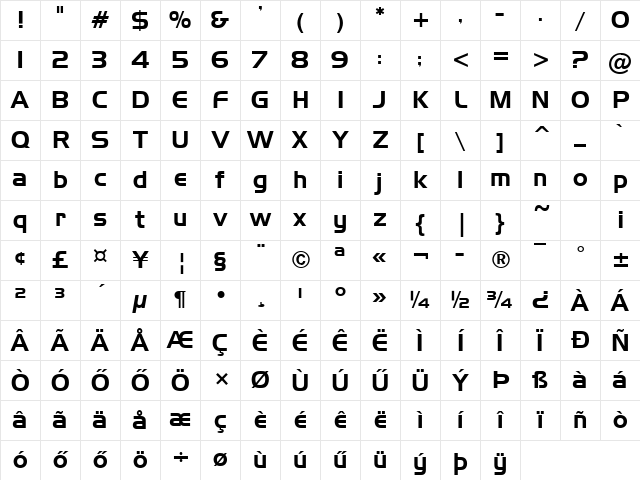
Huni_Aero Regular Free Font
Huni_Aero Regular
Design Context for Huni_Aero
Huni_Aero is a composed and adaptable typeface that performs quietly and consistently across a wide range of design contexts.